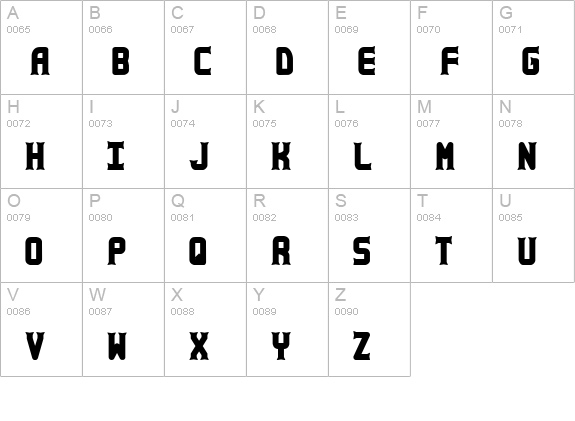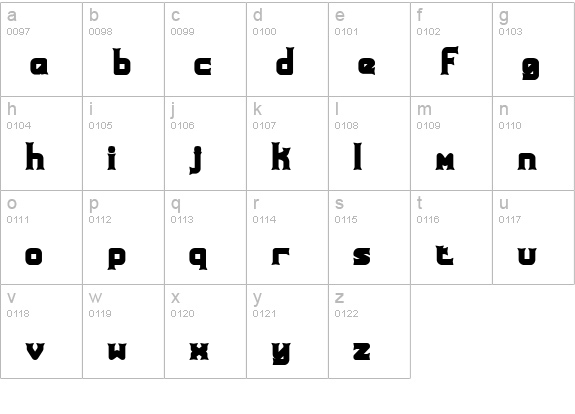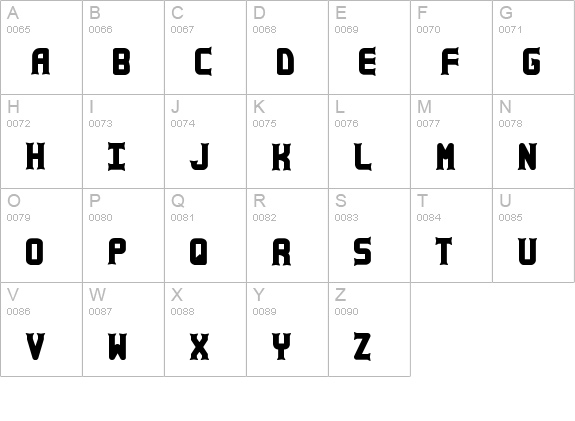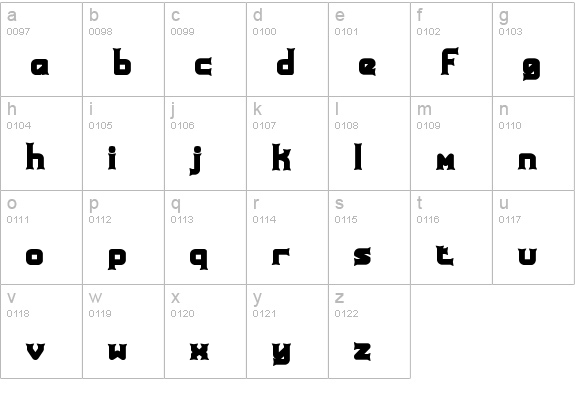
Ataxia BRK Font Details
Ataxia BRK font is a modern and stylish typeface that exudes elegance and sophistication. With its sleek lines and geometric shapes, this font is perfect for a wide range of design projects, from branding to editorial design. Ataxia BRK font is versatile and can be used in both digital and print applications, making it a must-have for any designer looking to make a statement. The best part? Ataxia BRK font is completely free to download at FontsMarket.com. This means you can access this stunning font without breaking the bank, allowing you to elevate your designs without any added cost. Don't miss out on this fantastic opportunity to enhance your projects with the Ataxia BRK font - download it today and start creating beautiful designs with ease.